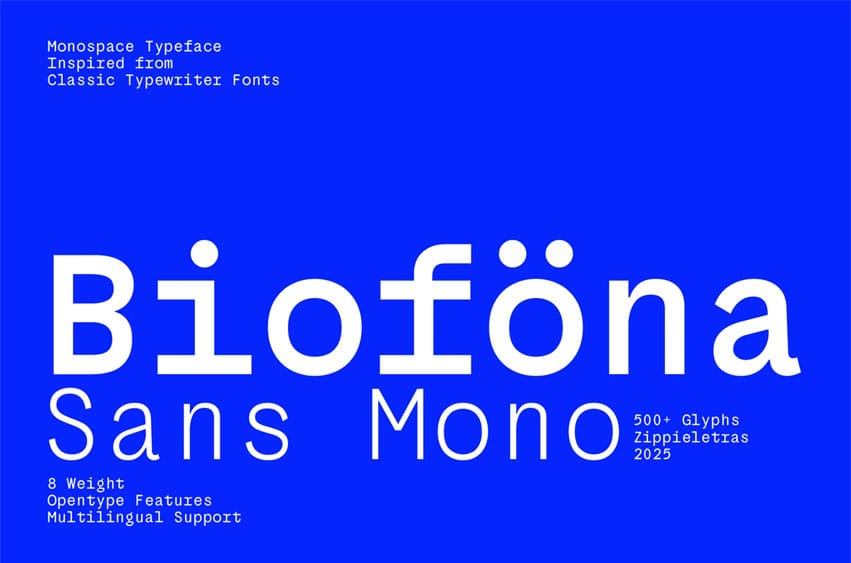
Biofona Sans Mono Font is a modern sans serif crafted for clarity, functionality, and bold brand identity. Designed with smooth proportions and minimal contrast, it delivers a timeless aesthetic that adapts beautifully across logos, websites, posters, signage, and editorial layouts.
Its distinctive letterforms balance geometric precision with humanist warmth, making it suitable for both corporate systems and creative campaigns. Characters like R, a, g bring subtle uniqueness, while Stylistic Set 01 (SS01) offers sleek alternatives to give your typography a more modern edge. Combined with ligatures, Biofona Sans provides designers with powerful flexibility to shape memorable brand identities.
With 8 styles ranging from Thin to ExtraBlack, plus OTF, TTF, WOFF, WOFF2, and Variable Font formats, Biofona Sans Mono is optimized for every platform — print, digital, and motion. Supporting Basic Latin and Extended Latin, it’s a global-ready typeface built to communicate with confidence and precision.
Perfect Pairing:
Looking for the perfect contrast? Try pairing Biofona Sans Mono with Biofona Serif Mono — designed as its natural companion. Together, they form a complete type system: modern sans for clarity and function, paired with serif warmth for editorial depth and character.
Personality
“Biofona Sans Mono” – a modern sans serif with clarity, strength, and brand identity versatility.
Feels like:
• Modern corporate brand identity systems
• Editorial spreads with bold typography
• Websites, UI, and digital platforms
• Logos and wordmarks with timeless clarity
• Posters, campaigns, and strong signage
Best For:
• Branding and corporate identity
• Editorial design and magazine layouts
• Website and UI typography
• Logo design and professional wordmarks
• Posters, packaging, and digital campaigns